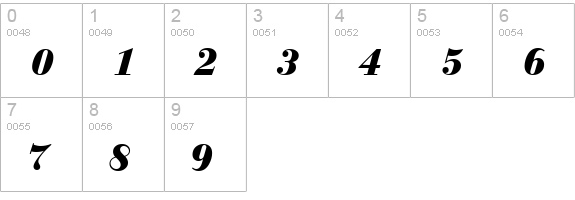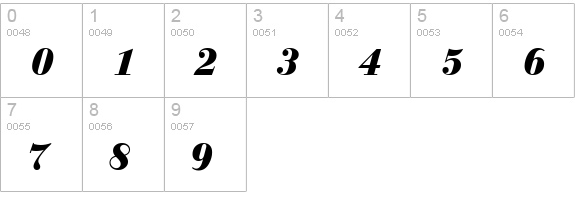
Bodoni-CE-Bold-Italic Font Details
Bodoni-CE-Bold-Italic is a strong, high-contrast, italic variant in the Bodoni typeface family \xE2\x80\x94 well suited to headlines, attention-grabbing titles, and strong calls-to-action.
Bodoni-CE-Bold-Italic is a striking and elegant typeface that exudes sophistication and style. Its bold and italic design adds a touch of modernity and flair to any project, making it perfect for headlines, titles, and branding materials. This font is ideal for creating a bold statement and demanding attention from viewers. What sets Bodoni-CE-Bold-Italic apart is its impeccable craftsmanship and attention to detail, showcasing clean lines and sharp serifs that give it a timeless appeal. The contrast between thick and thin strokes adds a sense of drama and impact, making it a standout choice for design projects that require a touch of luxury. Best of all, Bodoni-CE-Bold-Italic is available for free download at FontsMarket.com, allowing designers and creatives to access this premium font without any cost. Whether you're working on a print design, digital project, or branding campaign, this font is sure to elevate your work and leave a lasting impression on your audience. Download Bodoni-CE-Bold-Italic today and add a touch of sophistication to your designs.